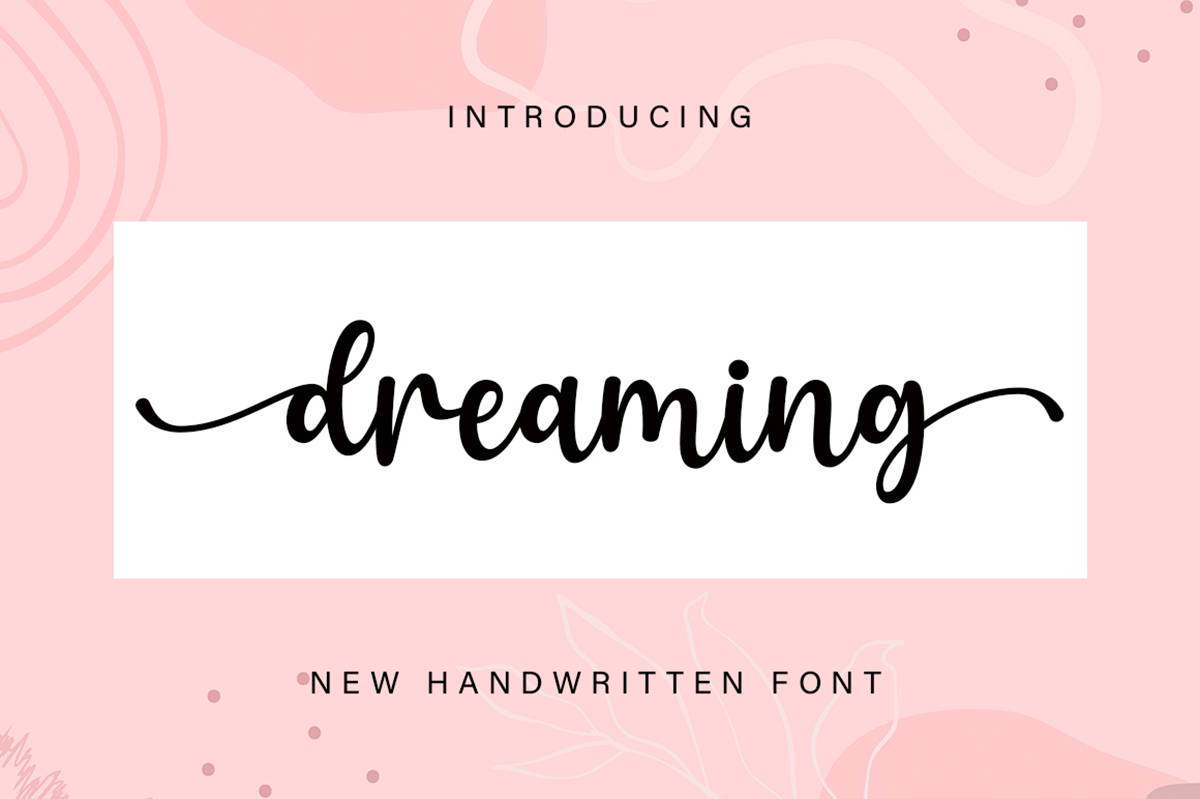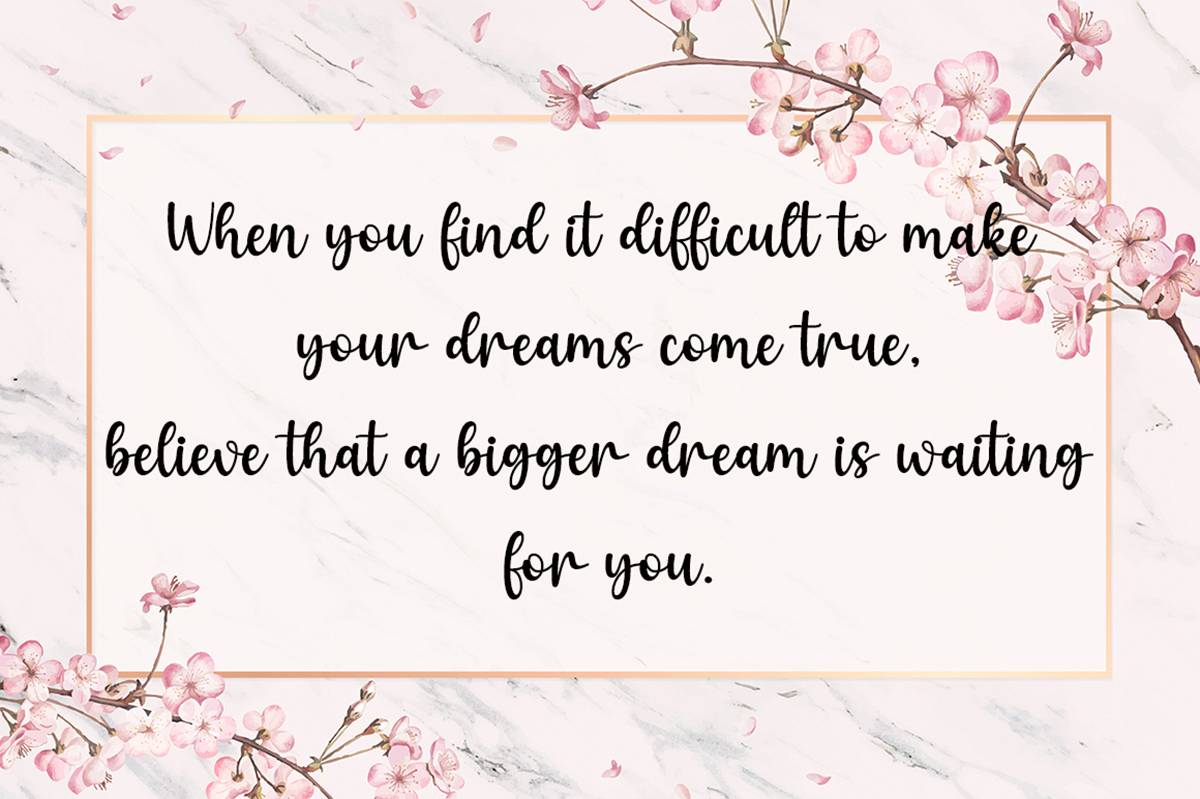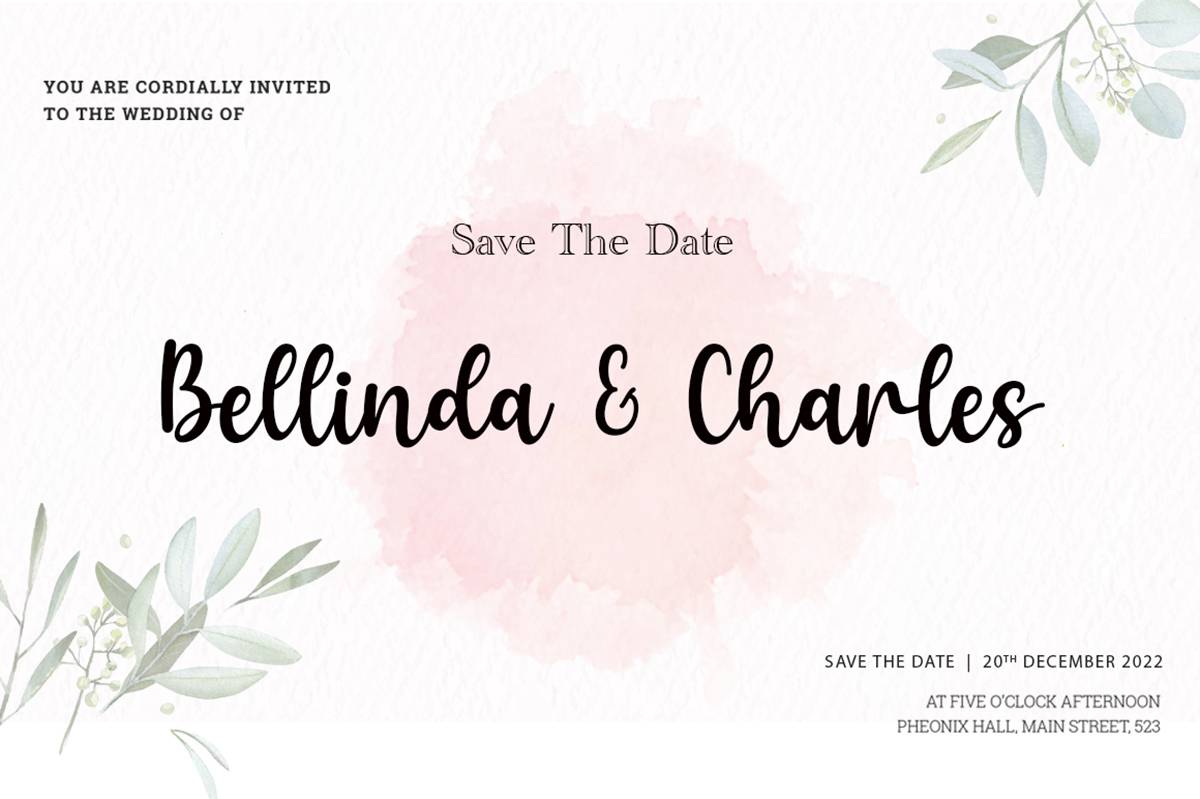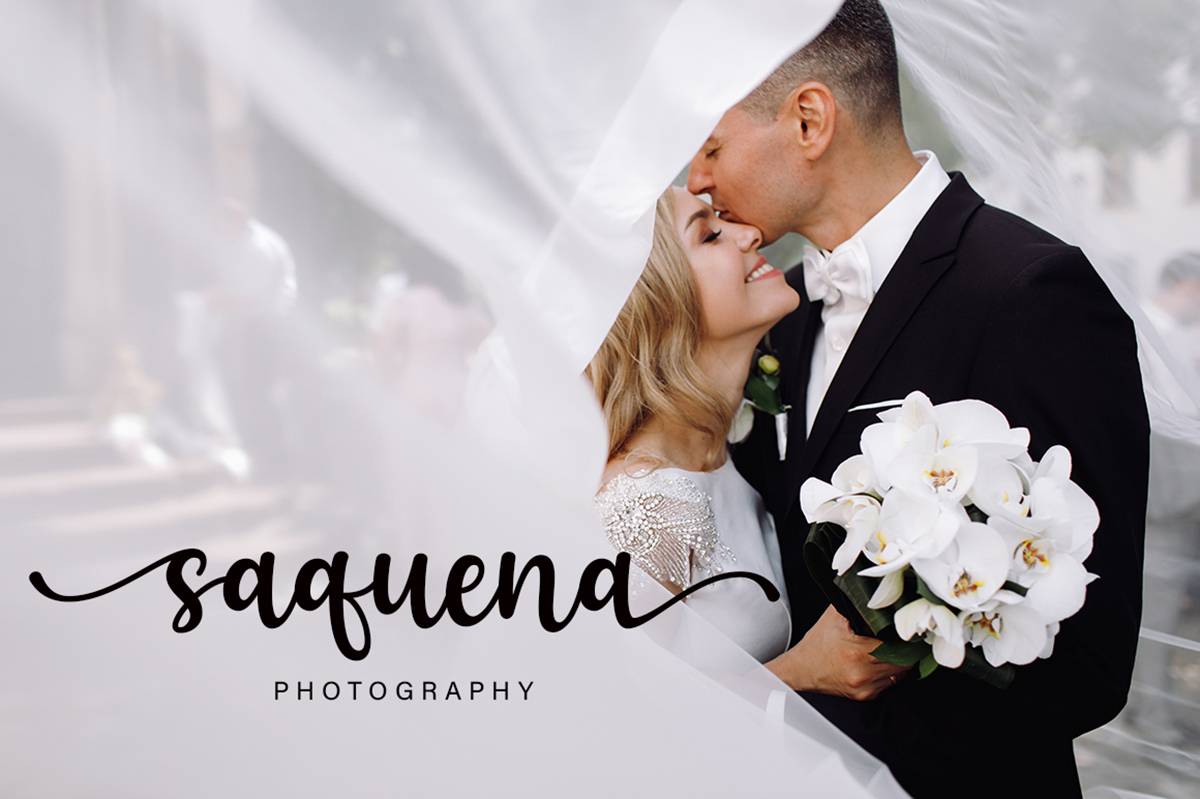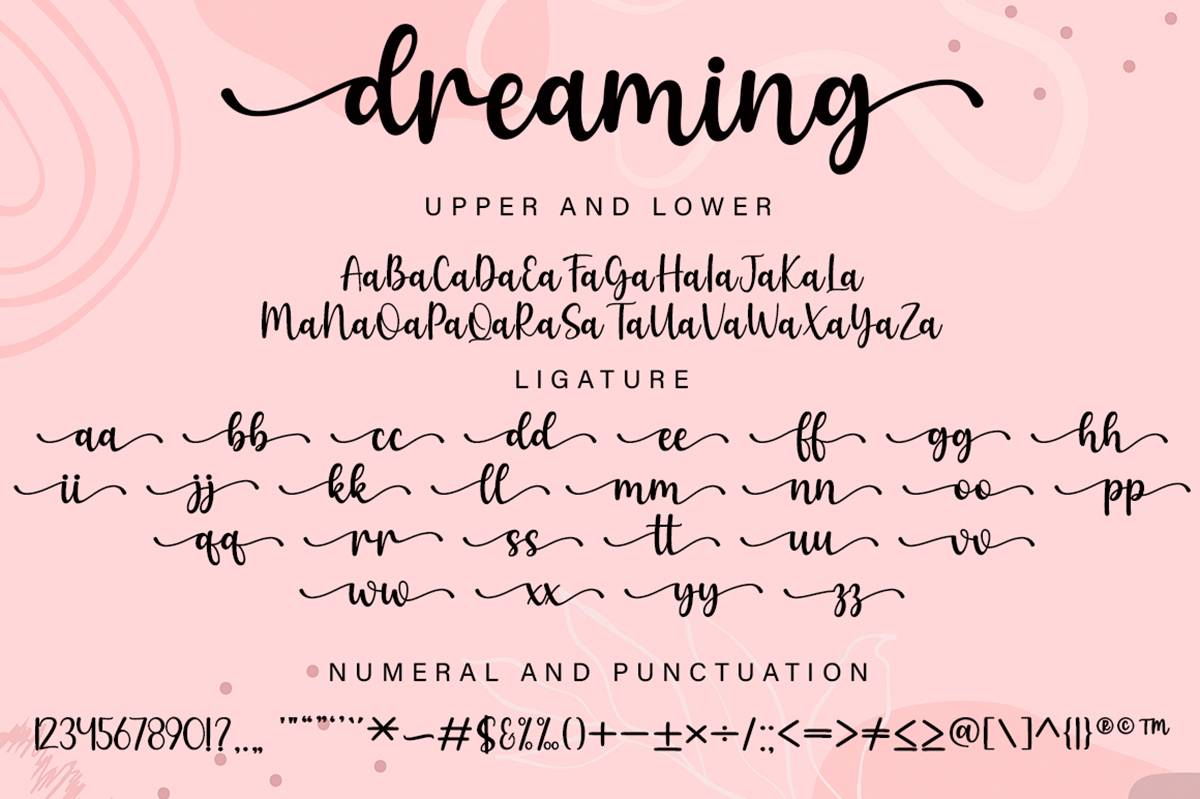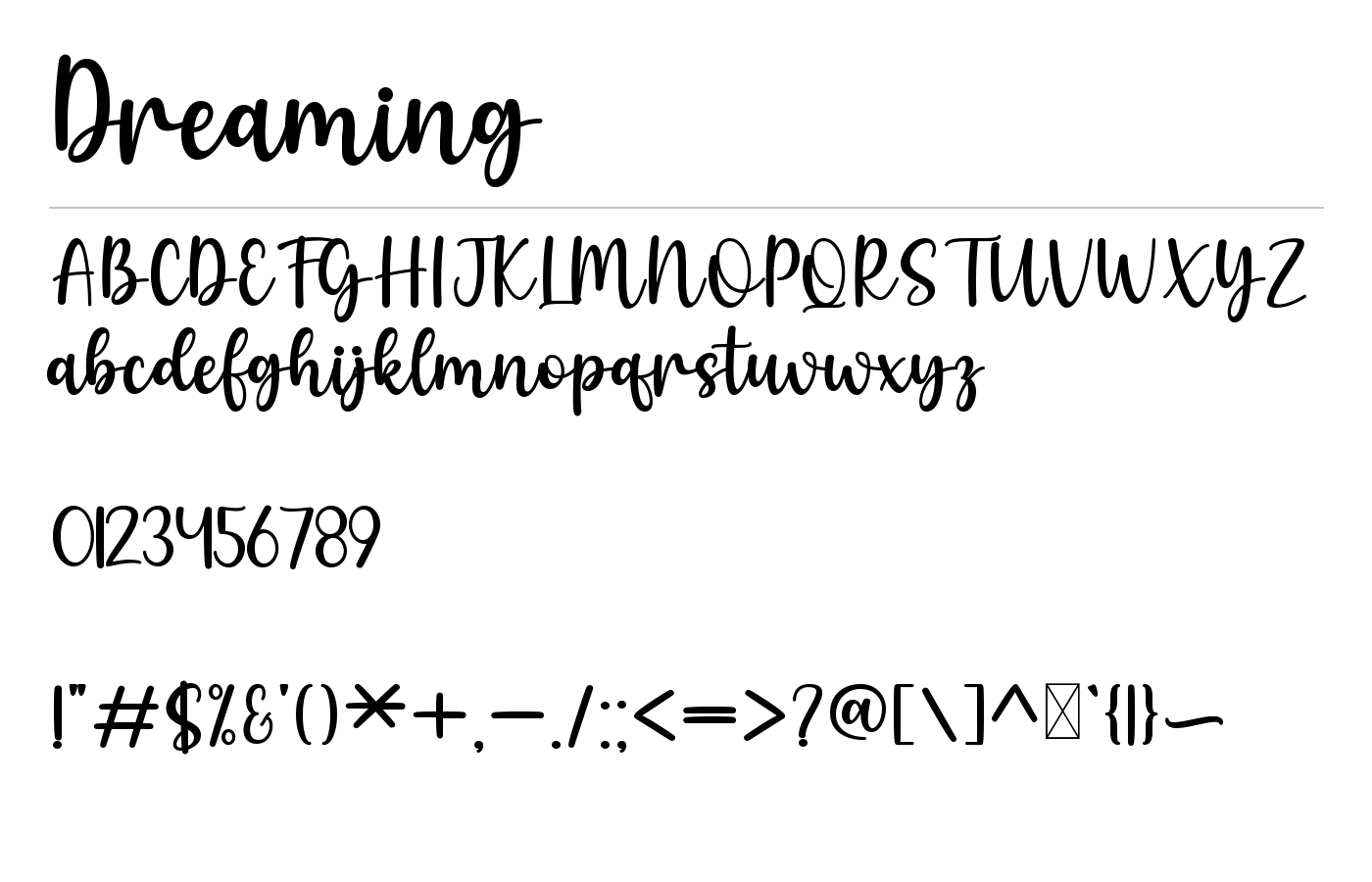
Dreaming is a casual, playful script font with a handwritten feel and smooth, rounded strokes that create a friendly and approachable vibe. Its medium weight, slightly condensed letterforms, and mix of uppercase and lowercase styles make it perfect for creative projects, invitations, and branding that seek a warm, personal touch. This font works well for logos, greeting cards, and social media designs where a lively, informal personality is desired.
Dreaming Font
About Dreaming Font
| Font family | Dreaming Font |
| Designer | Wahyudi |